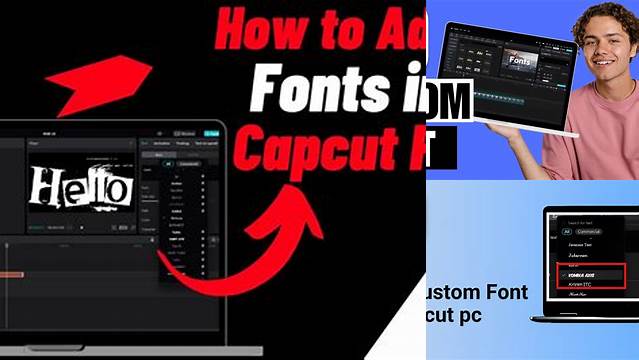
Add Fonts To CapCut Laptop: Easy Guide For Stunning Videos
Hey guys! Ever felt like your CapCut videos are missing that special something? Chances are, it might be the fonts! Using the right font can drastically improve your video's visual appeal and make your message resonate even better. In this comprehensive guide, we're diving deep into how to add fonts in CapCut on your laptop, so you can take your video editing skills to the next level. We'll cover everything from finding the perfect fonts to installing them and using them in your projects. So, grab your favorite beverage, get comfy, and let's get started!
Why Custom Fonts Matter in CapCut
Before we jump into the how-to, let's quickly chat about why custom fonts are so important. CapCut, while being an awesome video editing tool, comes with a limited selection of pre-installed fonts. These fonts are okay, but they can sometimes feel a bit… well, generic. Using the same fonts as everyone else can make your videos blend into the crowd. Custom fonts, on the other hand, allow you to inject your unique personality and brand identity into your videos. Think about it: a playful, handwritten font can be perfect for a vlog, while a sleek, modern font might be better suited for a professional tutorial. The right font can enhance the mood, tone, and overall message of your video, making it more engaging and impactful.
Moreover, custom fonts can significantly improve your branding. If you're creating videos for your business or personal brand, using consistent fonts across all your content helps build recognition and reinforces your visual identity. Imagine your viewers instantly associating a specific font with your channel – that's the power of branding! Plus, let's be honest, having a wider range of fonts at your disposal just makes the editing process more fun and creative. You can experiment with different styles, find the perfect match for each project, and really let your creativity shine. So, if you're serious about making your CapCut videos stand out, learning how to add custom fonts is a must!
Finding the Perfect Fonts for Your Projects
Okay, so you're convinced that custom fonts are the way to go. Awesome! But where do you even begin to find them? The internet is a vast ocean of fonts, and it can feel overwhelming to navigate. Don't worry, I've got you covered. There are tons of websites out there that offer free and premium fonts for you to download. Some of my personal favorites include Google Fonts, DaFont, Font Squirrel, and Adobe Fonts. Google Fonts is a fantastic resource because it offers a huge library of high-quality, open-source fonts that are completely free to use, even for commercial projects. DaFont is another great option, with a massive selection of fonts in various styles, from quirky and playful to elegant and sophisticated. Font Squirrel is known for its carefully curated collection of fonts, ensuring that everything you find there is top-notch. And Adobe Fonts, if you're an Adobe Creative Cloud subscriber, gives you access to thousands of fonts that you can easily sync to your computer.
When you're browsing these font websites, take your time and really explore the different options. Think about the style and tone of your videos. Are you going for a fun and casual vibe, or something more professional and polished? Consider the readability of the font as well. A super fancy, decorative font might look cool, but if it's hard to read, it's not going to be effective in your videos. Look for fonts that are clear, legible, and easy on the eyes. Also, pay attention to the licensing of the fonts you download. Some fonts are free for personal use but require a commercial license if you're using them for business purposes. Make sure you understand the terms of use before you start using a font in your projects. Once you've found a few fonts that you love, download them to your computer – we'll get to the installation process in the next section!
Level Up Your Videos with Custom Fonts